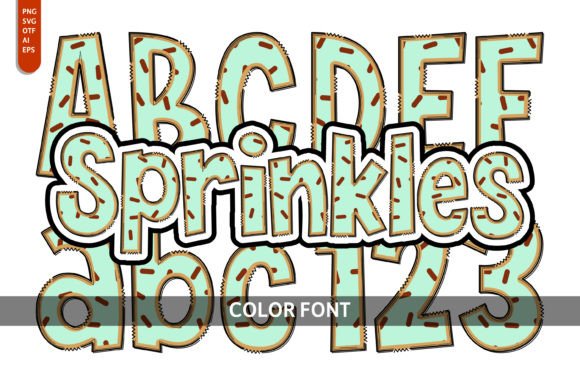
Introducing Sprinkles Font, a playful dance of colors that sparks your creativity and adds a touch of magic to your designs. This enchanting font family, crafted by Imagination Switch, captivates with its energetic and vibrant personality, making it the perfect choice for designers seeking a whimsical and artistic flair.
Sprinkles Font isn't just a collection of letters; it's an explosion of creativity that transforms your designs into captivating works of art. Its joyful and playful nature brings a smile to the face, making it ideal for projects that aim to spread happiness and positivity.
With Sprinkles Font, you'll find endless possibilities to bring your imagination to life. Whether you're designing children's books, posters, invitations, greeting cards, or any project that calls for a dash of whimsy, this font family is your perfect companion.
Sprinkles Font's playful and vibrant spirit makes it a natural choice for children's books. Its whimsical characters dance across the page, capturing the attention of young readers and creating an engaging reading experience.